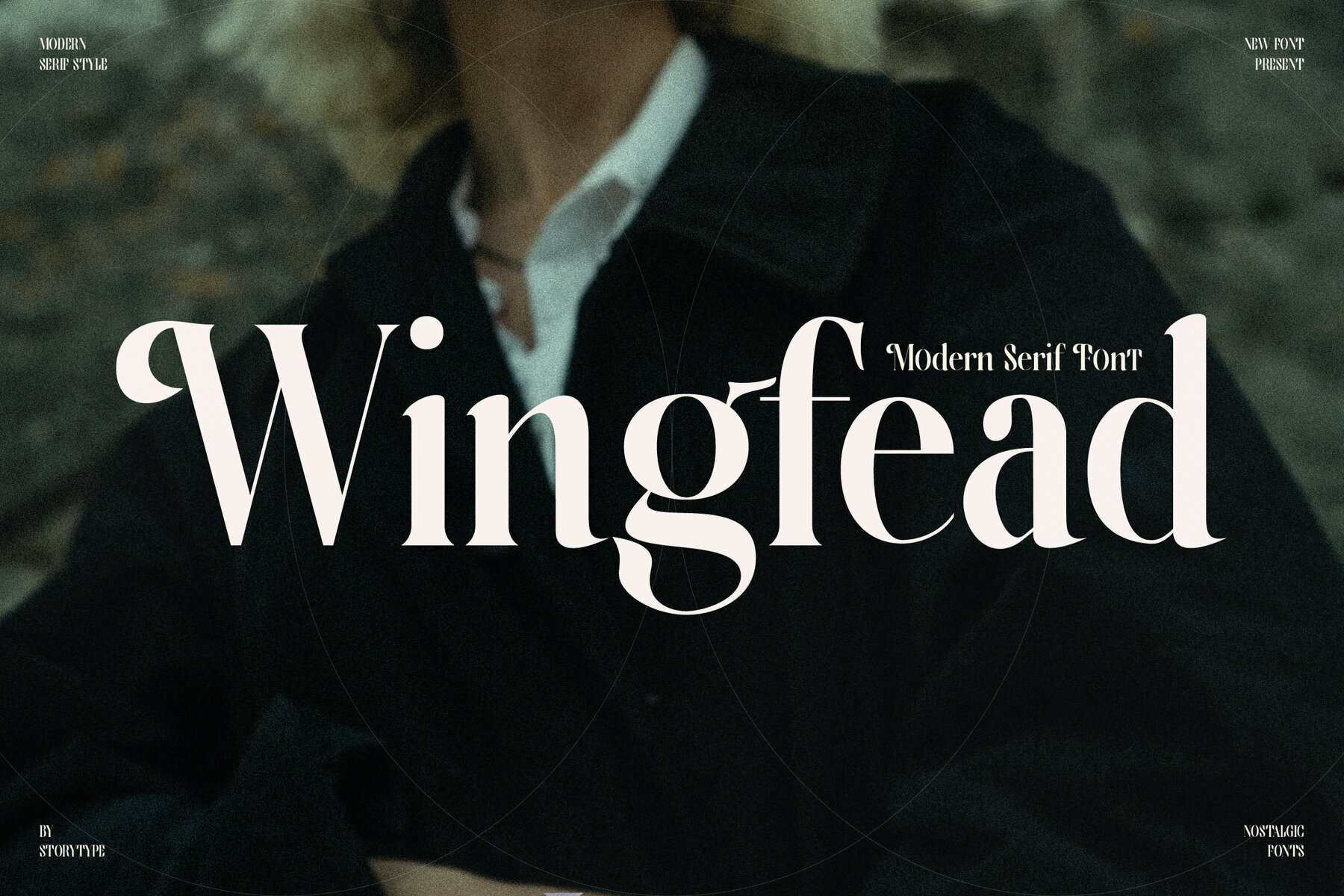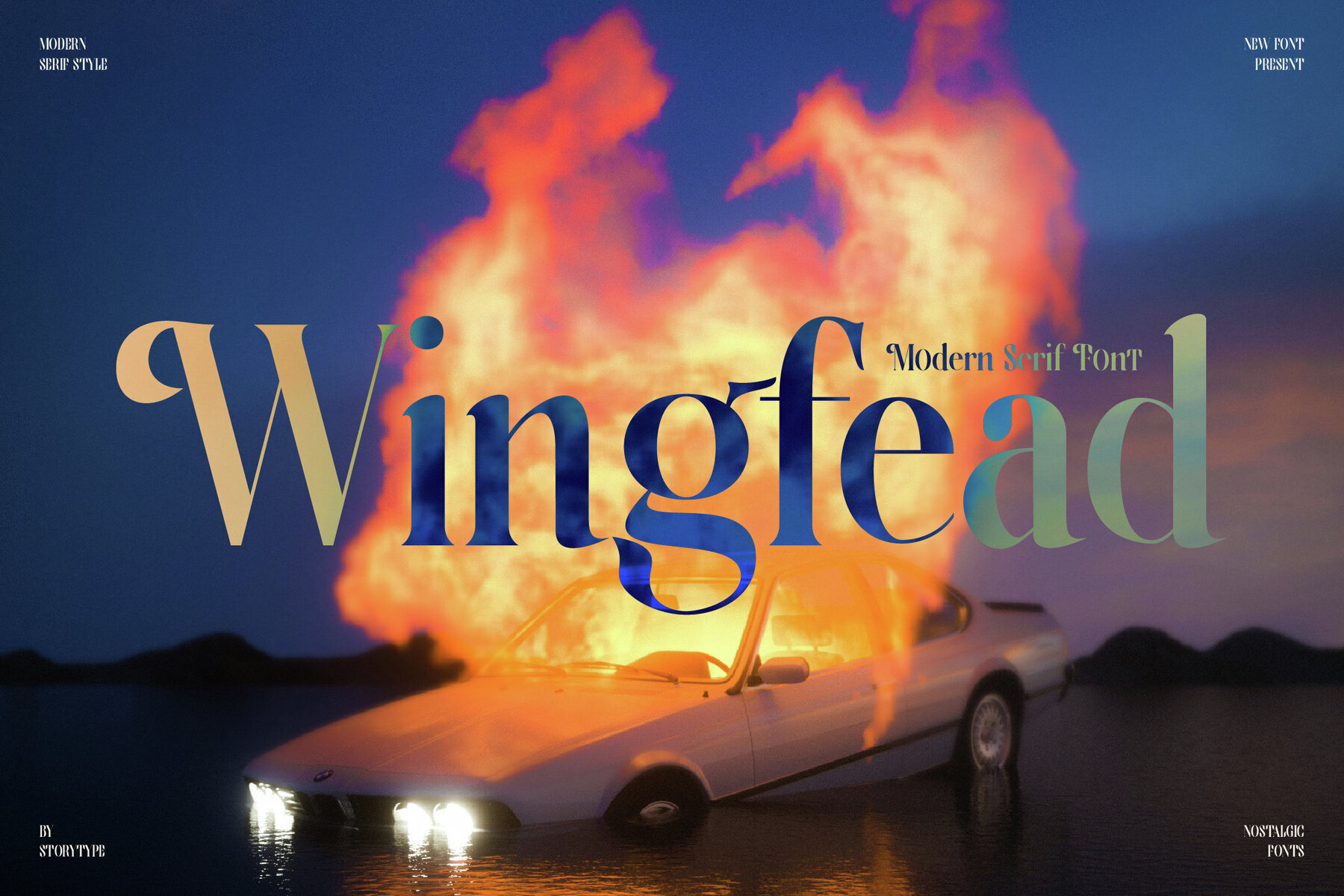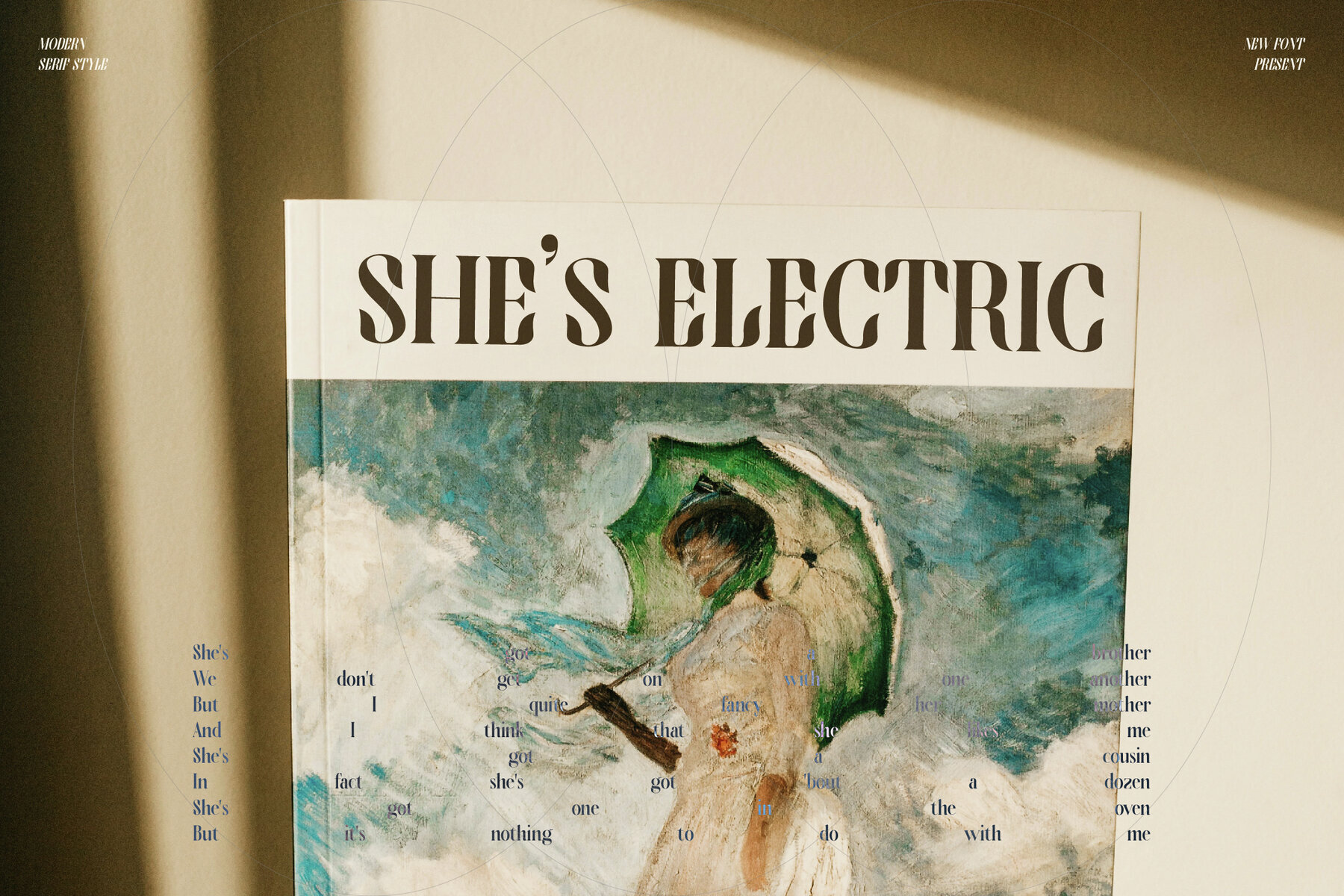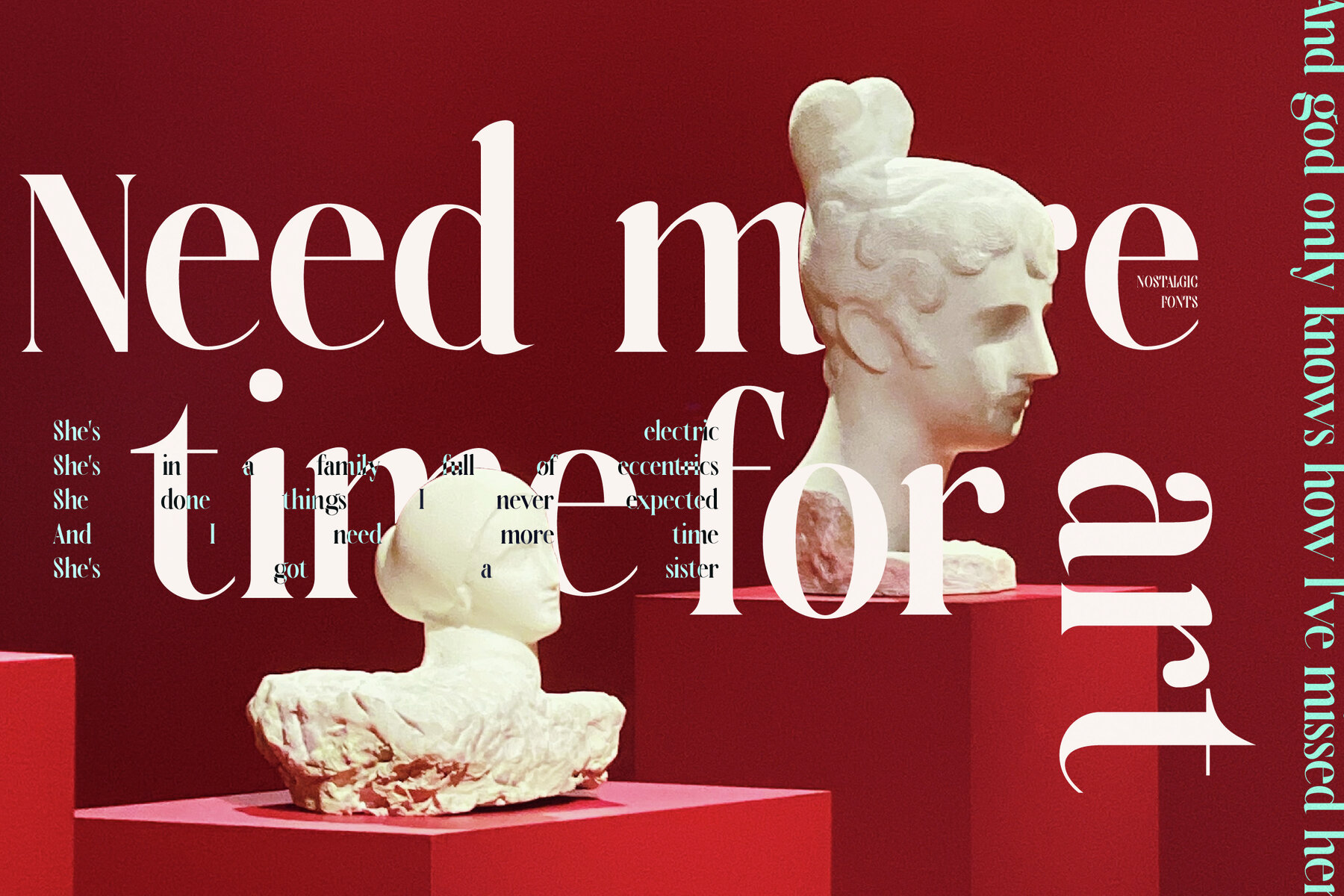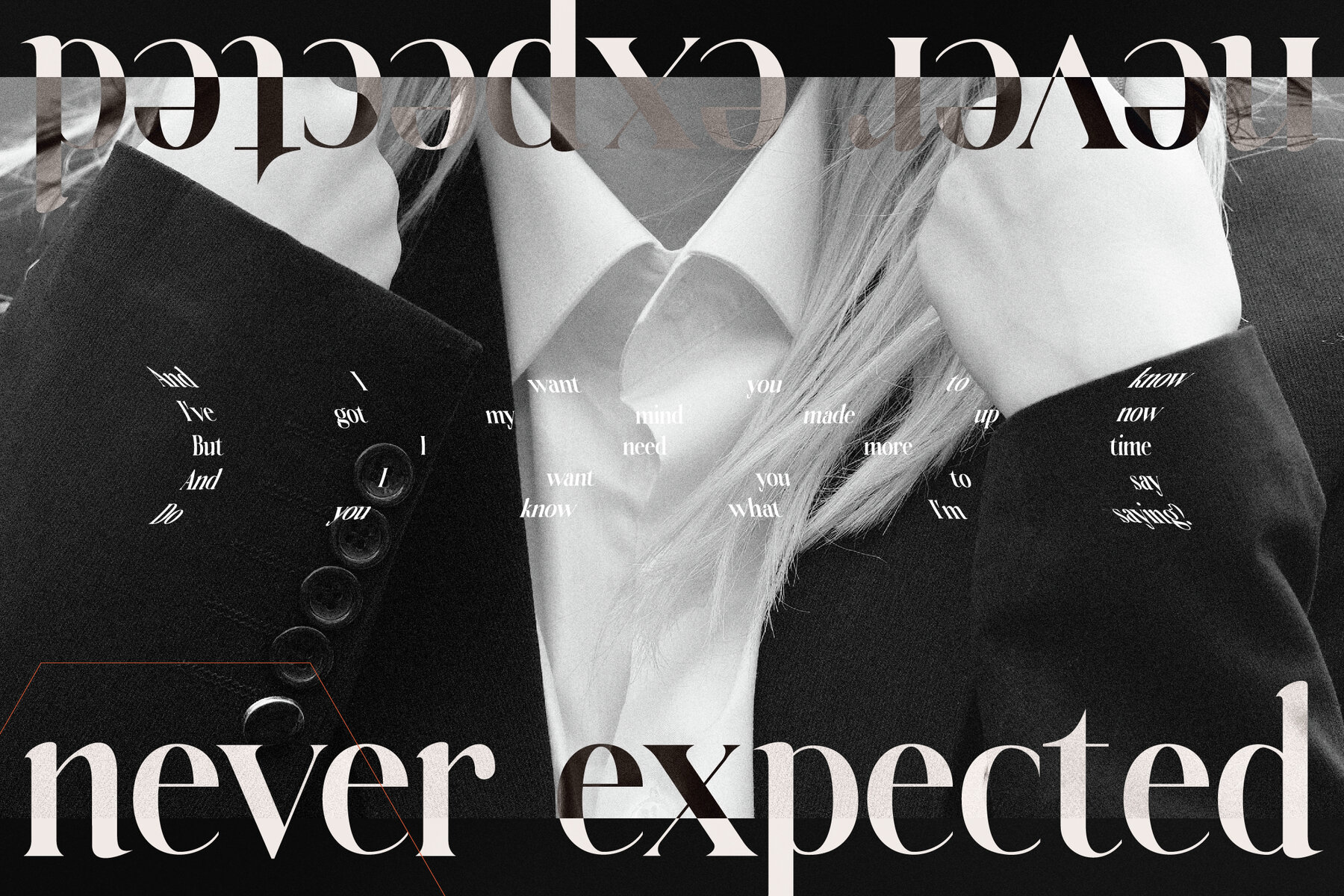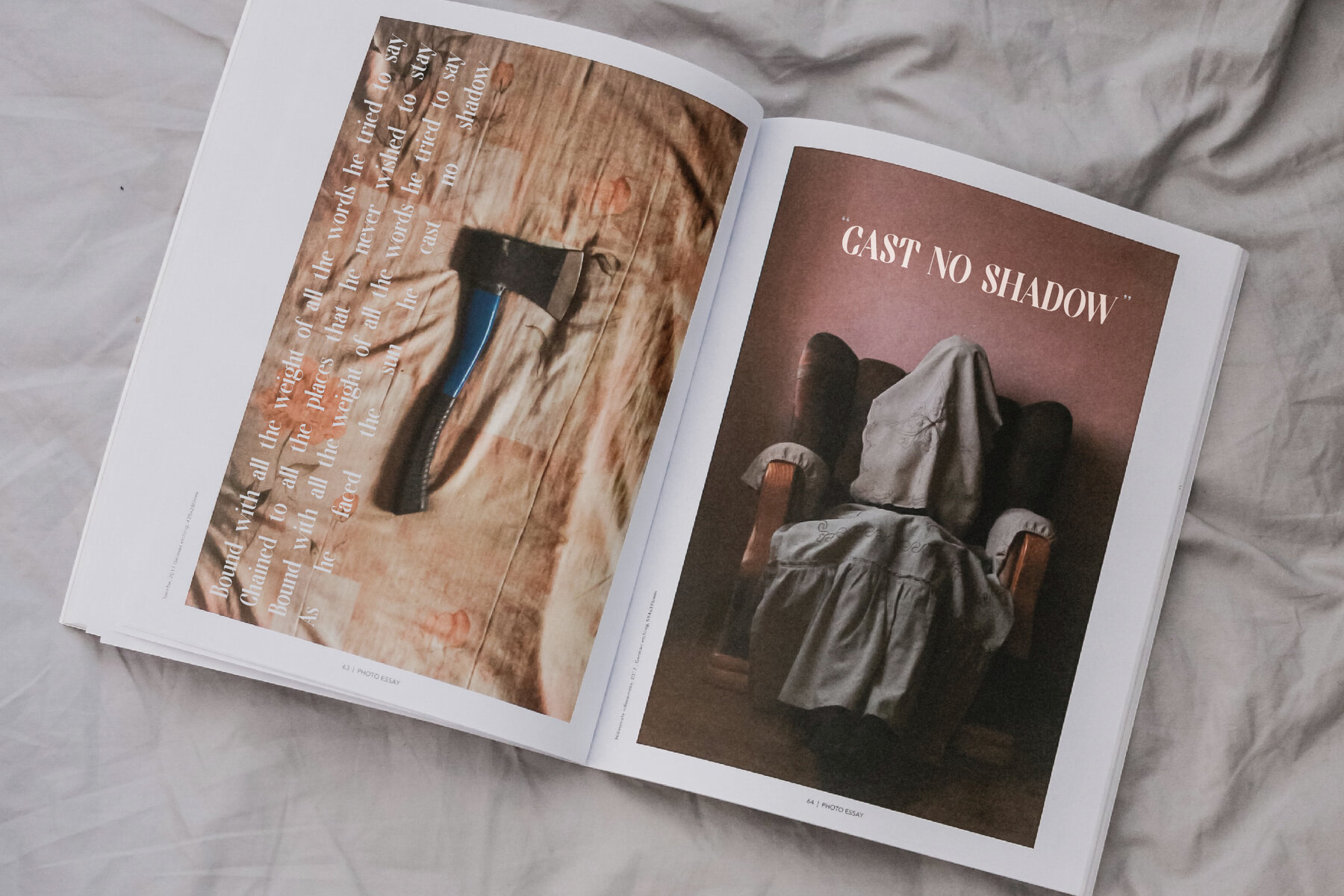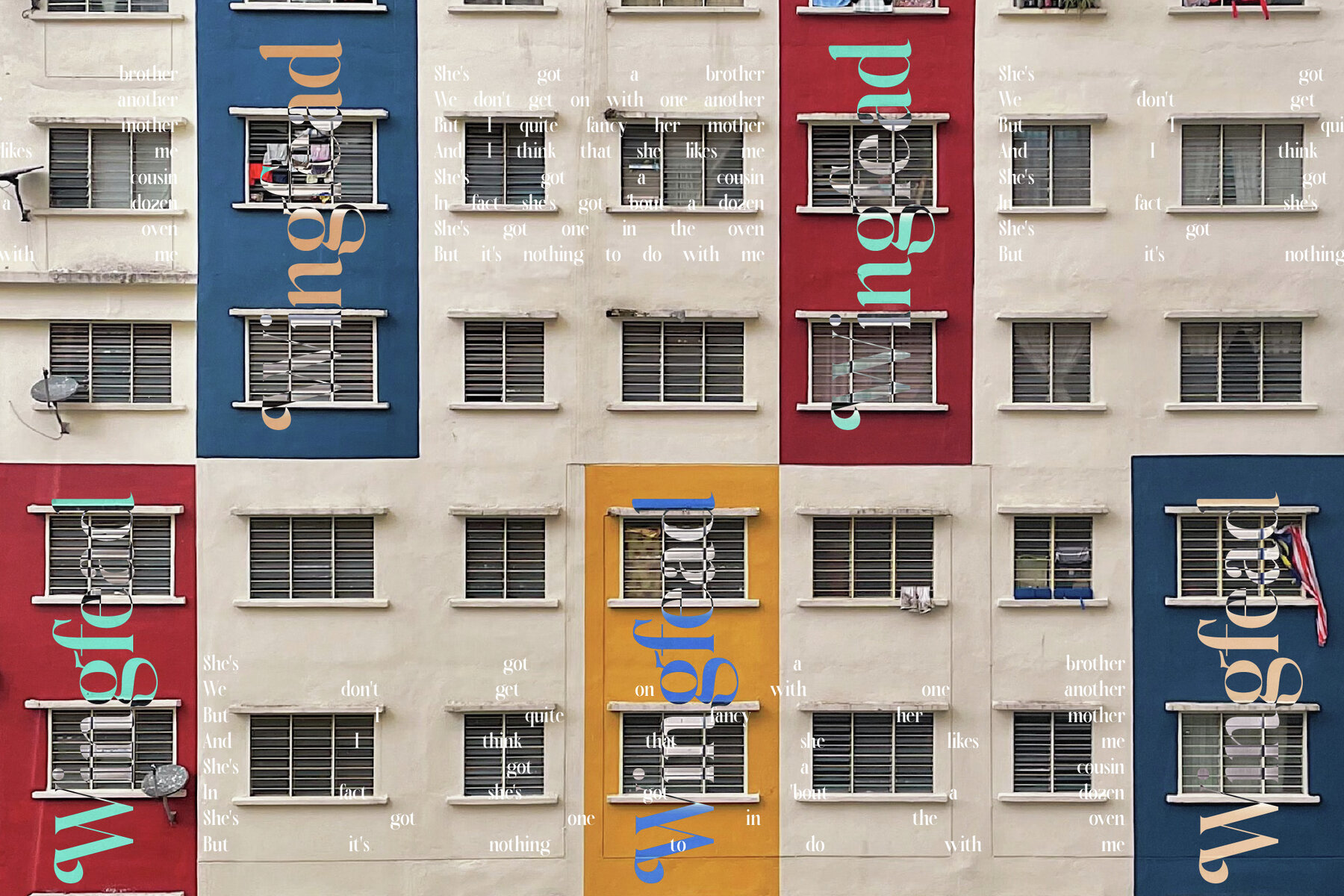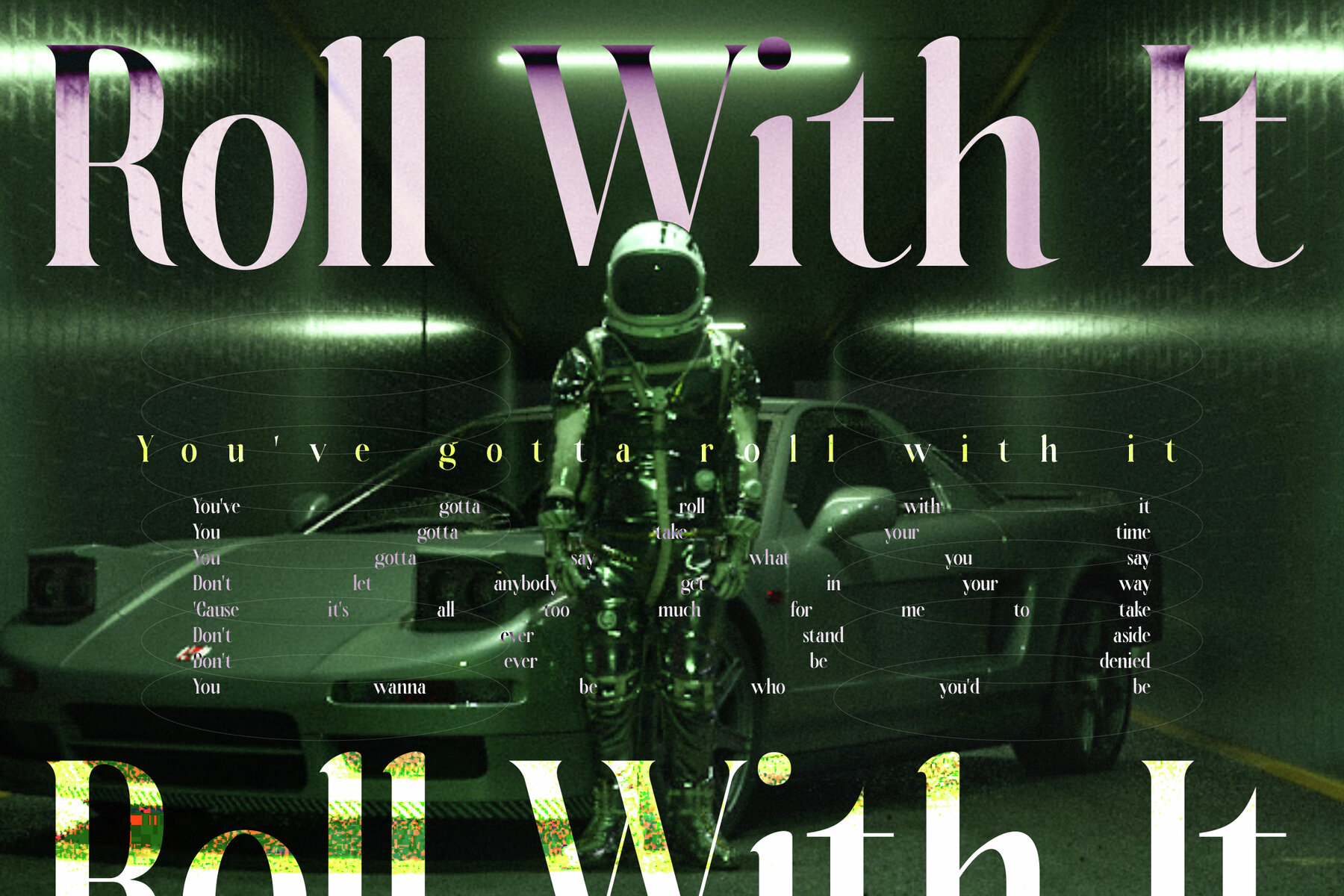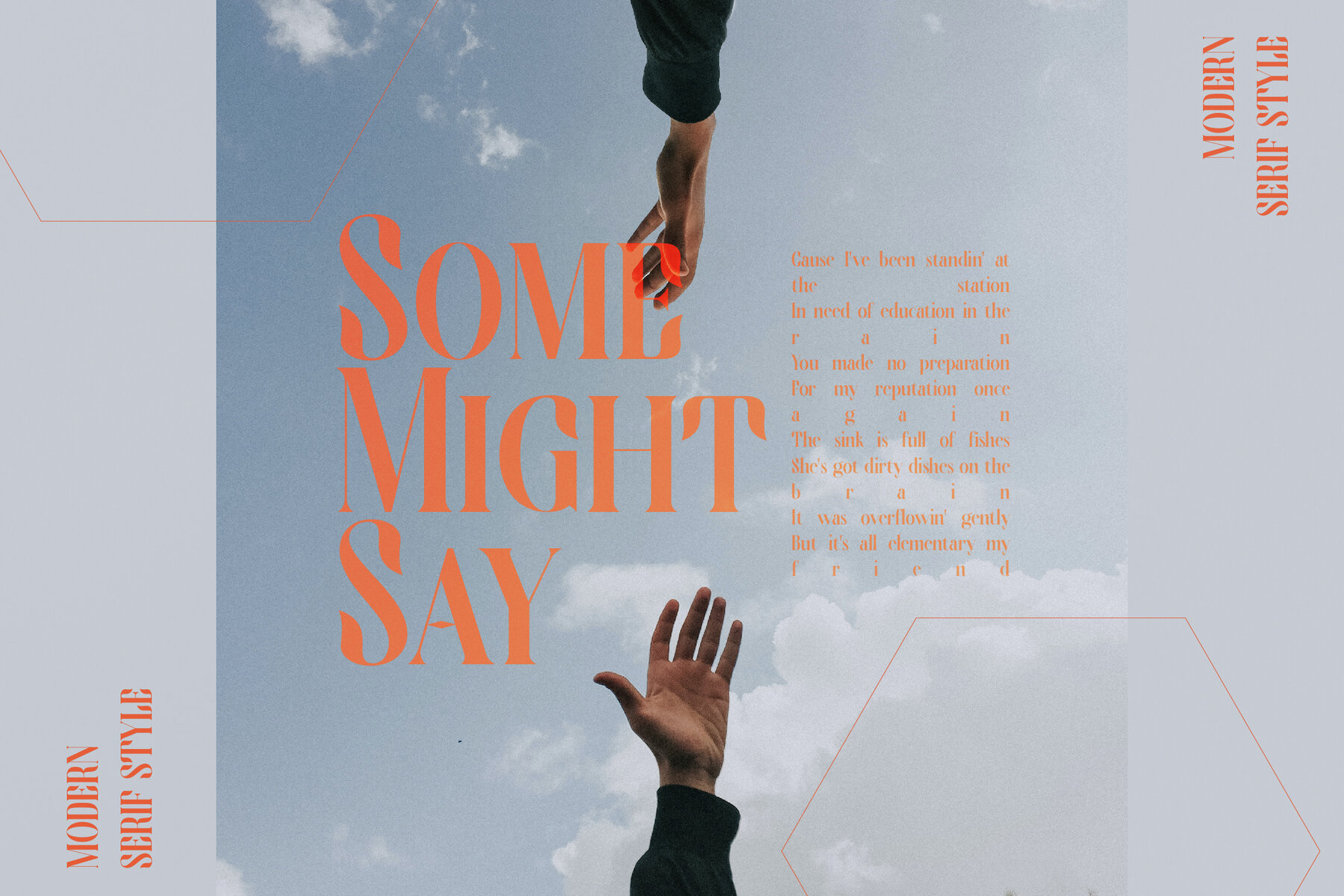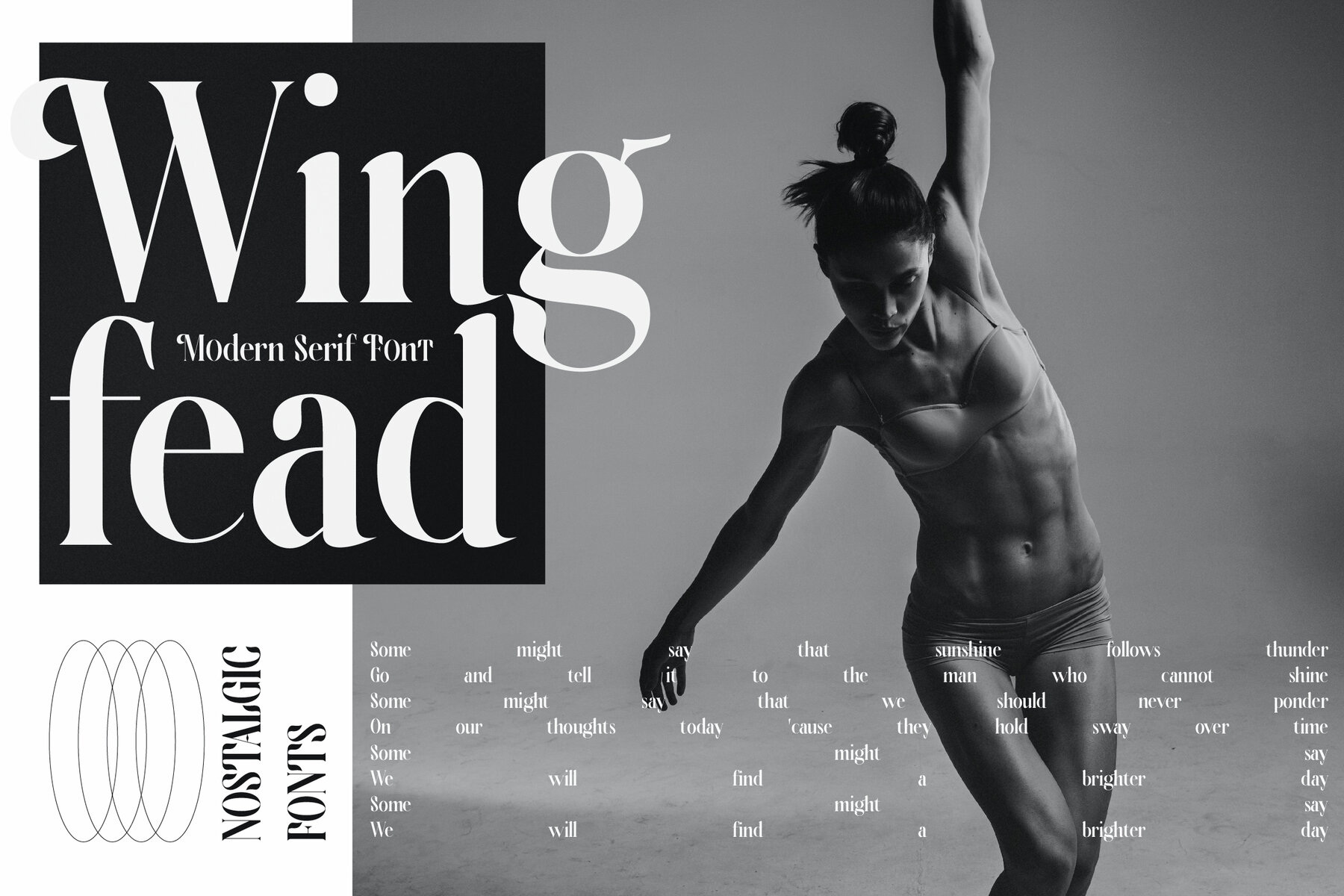
Wingfead Font
Wingfead Typeface is a sophisticated serif font that seamlessly blends modern and classic elements, offering designers a distinctive and contemporary option. This typeface stands out with its unique style, making it ideal for creating elegant and luxurious logos, book or movie titles, fashion brand identities, magazine layouts, clothing designs, and more. Wingfead offers versatility and refinement, perfect for a wide range of design applications.
Key Features:
- Standard glyphs for consistent visual appeal
- Includes alternate characters and ligatures for creative flexibility
- Multilingual support to accommodate diverse language needs
Wingfead Typeface is designed to provide you with the tools to achieve a polished and professional look in your projects, making it a valuable asset for graphic and digital designers seeking quality and elegance.